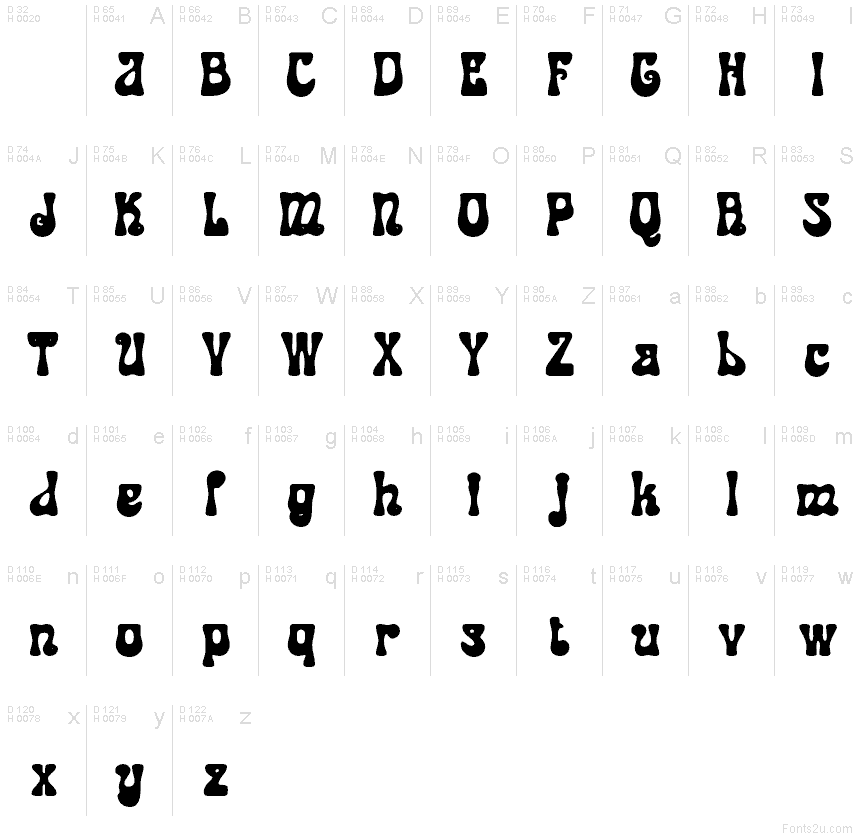
CS Flamour Drawn font by Craft Supply Co. is a free bold retro display font. Part of the CS Flamour family, it leans into a groovy, hand-drawn vibe: chunky silhouettes, puddled curves, and scooped terminals that feel inky and a little mischievous. The rhythm sways without losing legibility, and those soft, bulbous forms deliver big personality without turning messy.
This free font shines on music festival posters, vintage packaging, album covers, surf or skate branding, pop-up cafe menus, and splashy social headers. Using CS Flamour Drawn at oversized scales with a touch of loose tracking makes the letterforms bloom. Pair with a light, no-nonsense grotesk for body copy to let the blobby headlines steal the show.